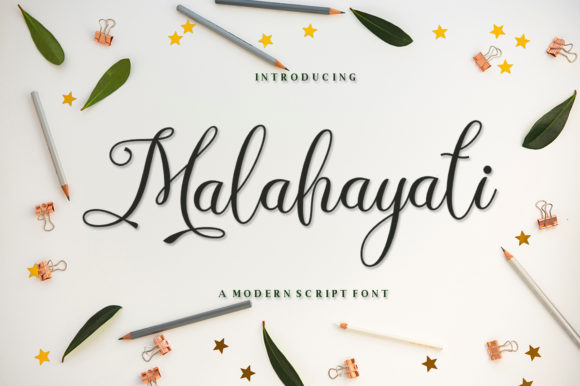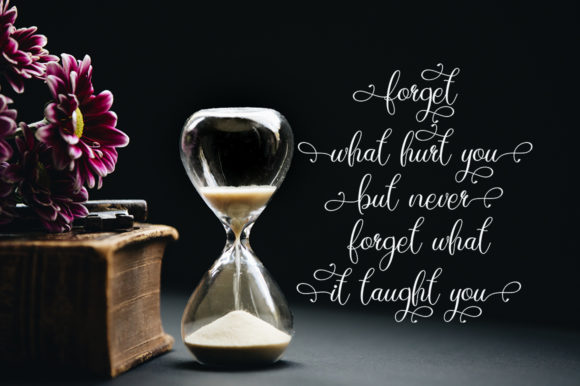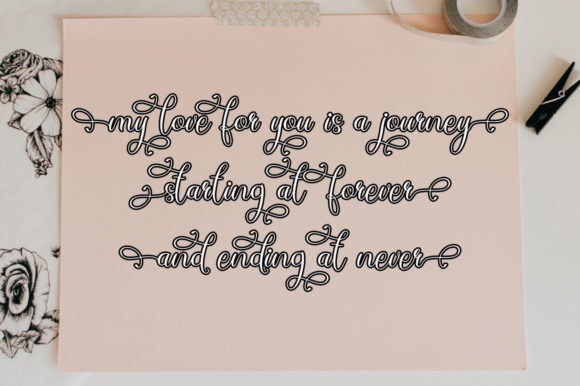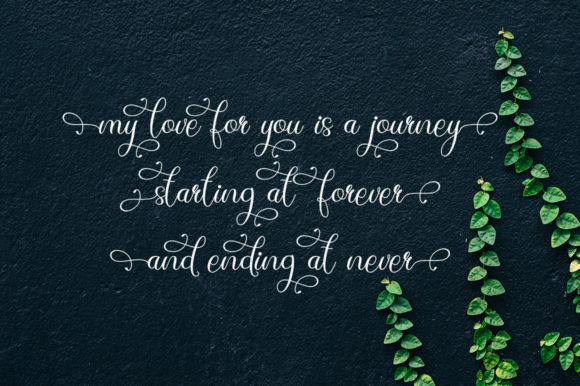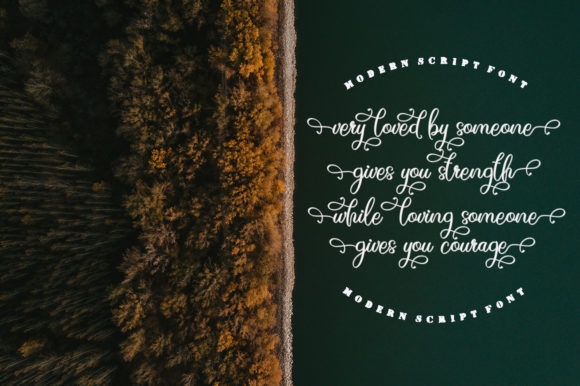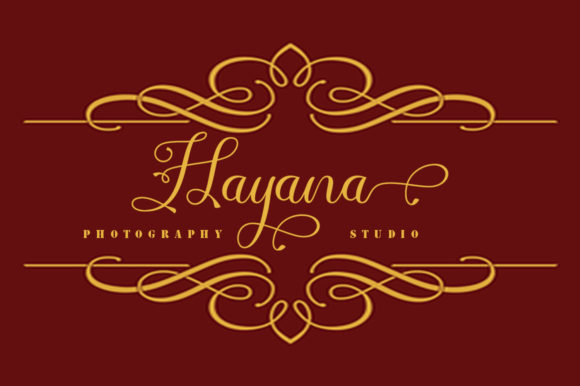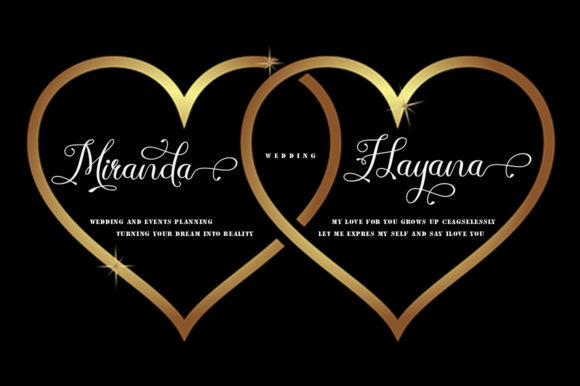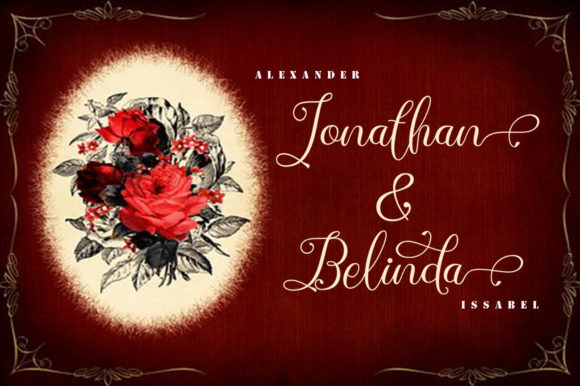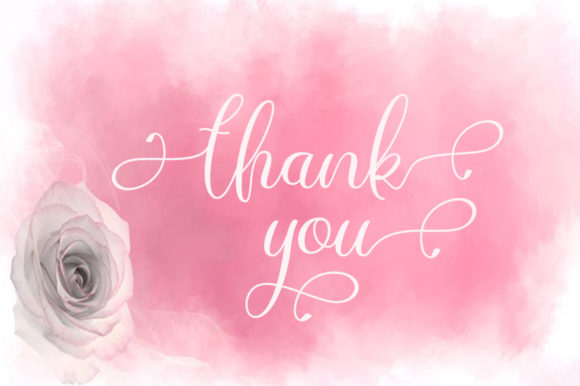
Malahayati Script Font
About Malahayati Script Font
Introducing “Malahayati Script,” a dynamic and energetic script font designed to bring vibrancy and movement to your projects. This font is not just a typeface; it’s a versatile design tool crafted to infuse a sense of dynamism into various creative endeavors. “Malahayati Script” is well-suited for titles, signatures, logos, correspondence, wedding invitations, advertisements, and much more.
The dynamic and energetic nature of “Malahayati Script” makes it perfect for projects that require a bold and lively touch. Whether you’re creating impactful titles, unique signatures, or eye-catching logos, this font delivers with its energetic and expressive script style.
Its versatility allows “Malahayati Script” to adapt seamlessly to different design contexts. In wedding invitations, the font adds a touch of excitement and personality, creating a memorable visual experience. Logos designed with “Malahayati Script” exude energy and dynamism, making them stand out.
Correspondence and advertisements benefit from the font’s lively script, ensuring that your message is conveyed with enthusiasm and flair. The dynamic nature of “Malahayati Script” adds a layer of creativity to your designs, making them visually engaging and captivating.
In summary, “Malahayati Script” is more than just a font; it’s a design companion that brings dynamic and energetic script style to your creative projects. Embrace its lively nature for titles, signatures, logos, and more, and let “Malahayati Script” inject a burst of energy into your designs.